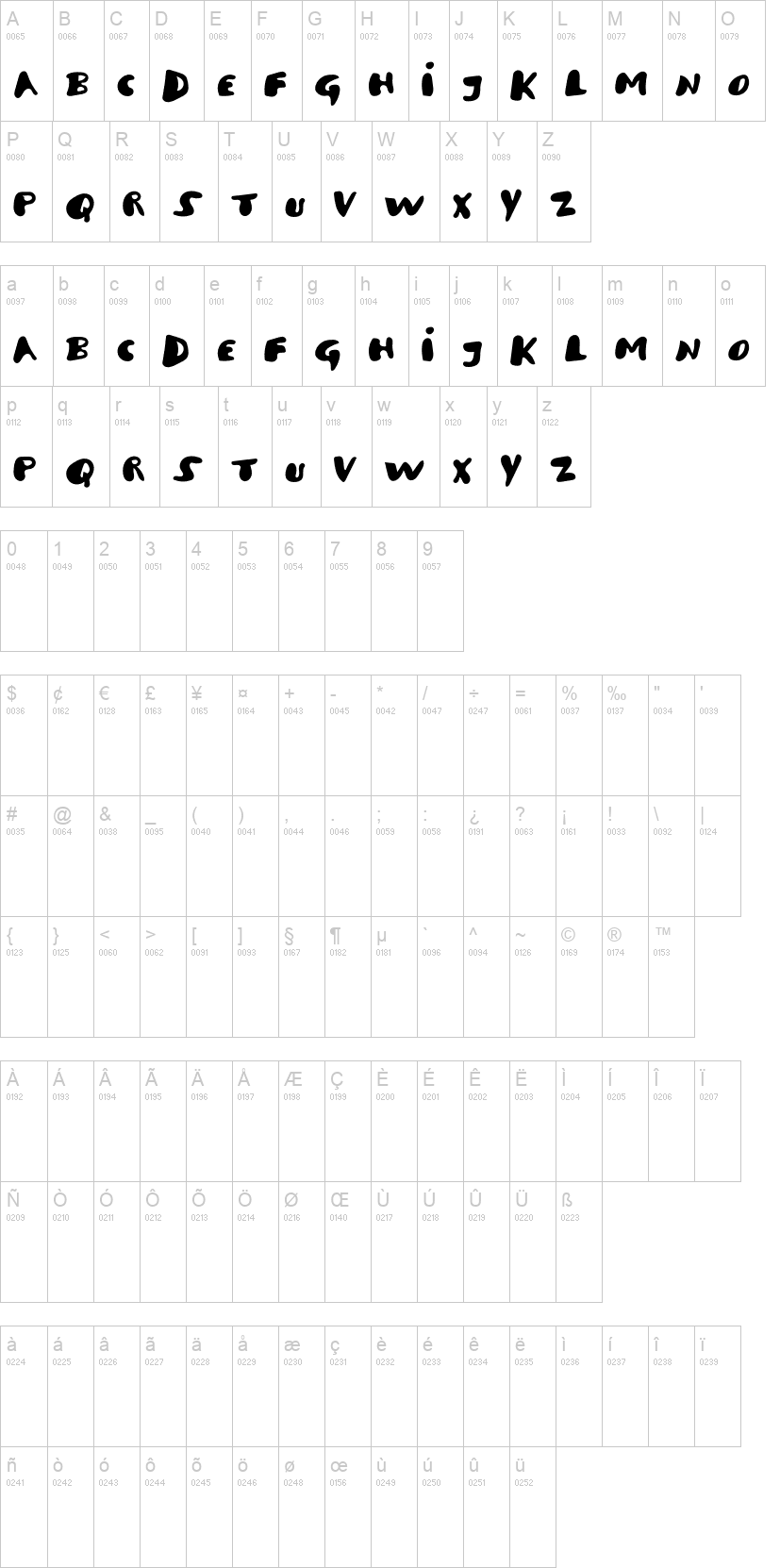
Last Dance Font
Last Dance Font - Redux, a new and improved version. Use the controls below to customize your text string and its. Web last dance font | dafont.com english français español deutsch italiano português. Redux, a new and improved version.
Web last dance font | dafont.com english français español deutsch italiano português. Use the controls below to customize your text string and its. Redux, a new and improved version. Redux, a new and improved version.
Last Dance Retro Font FreeDaFonts
Redux, a new and improved version. Web last dance font | dafont.com english français español deutsch italiano português. Redux, a new and improved version. Use the controls below to customize your text string and its.
Last Dance Retro Font FreeDaFonts
Web last dance font | dafont.com english français español deutsch italiano português. Redux, a new and improved version. Use the controls below to customize your text string and its. Redux, a new and improved version.
Last Dance Font Download
Web last dance font | dafont.com english français español deutsch italiano português. Redux, a new and improved version. Use the controls below to customize your text string and its.
Last Dance An 80s Inspired Brush Script Font By wingsart
Redux, a new and improved version. Web last dance font | dafont.com english français español deutsch italiano português. Use the controls below to customize your text string and its. Redux, a new and improved version.
Last Dance 1980s Inspired Handmade Script Font by Wing's Art Studio
Web last dance font | dafont.com english français español deutsch italiano português. Use the controls below to customize your text string and its. Redux, a new and improved version. Redux, a new and improved version.
Redux, a new and improved version. Web last dance font | dafont.com english français español deutsch italiano português. Use the controls below to customize your text string and its. Redux, a new and improved version.
Last Dance Font
Use the controls below to customize your text string and its. Redux, a new and improved version. Web last dance font | dafont.com english français español deutsch italiano português.
Last Dance 1980s Inspired Handmade Script Font by Wing's Art Studio
Use the controls below to customize your text string and its. Redux, a new and improved version. Web last dance font | dafont.com english français español deutsch italiano português.
Last Dance font by Milos Vasojevic FontRiver
Use the controls below to customize your text string and its. Web last dance font | dafont.com english français español deutsch italiano português. Redux, a new and improved version. Redux, a new and improved version.
Web Last Dance Font | Dafont.com English Français Español Deutsch Italiano Português.
Use the controls below to customize your text string and its. Redux, a new and improved version. Redux, a new and improved version.